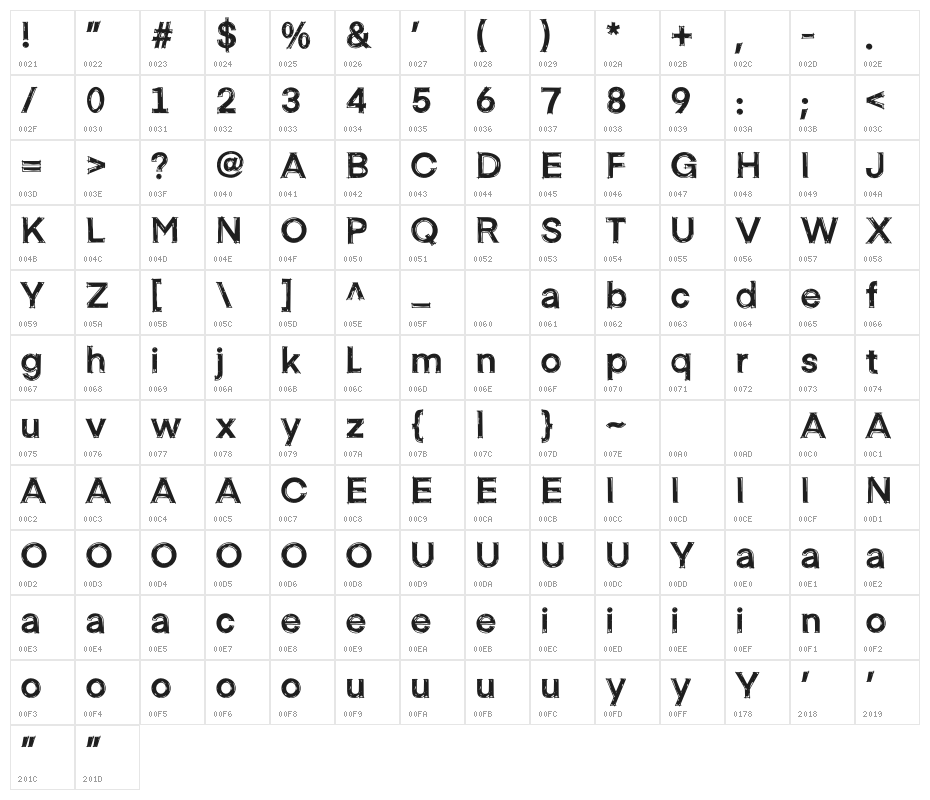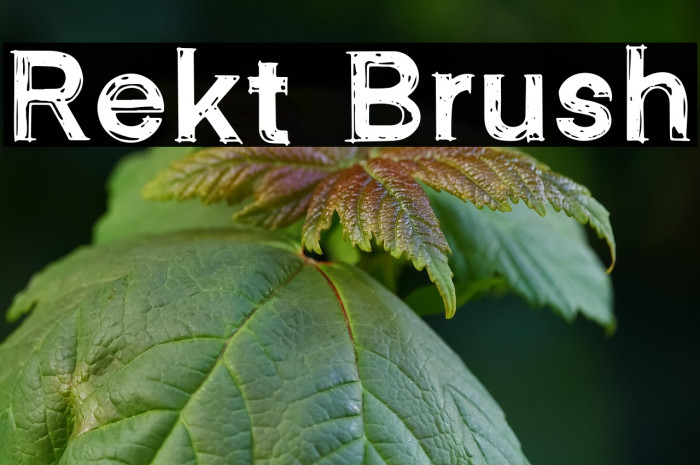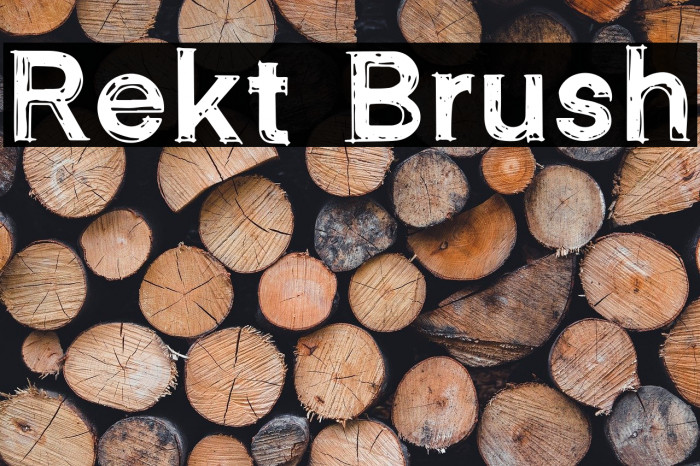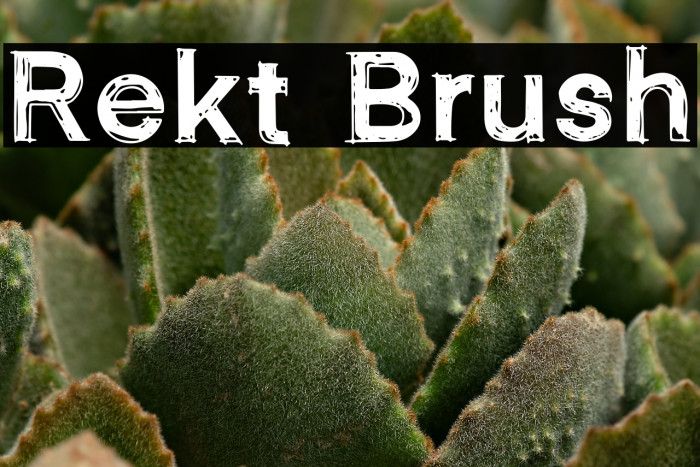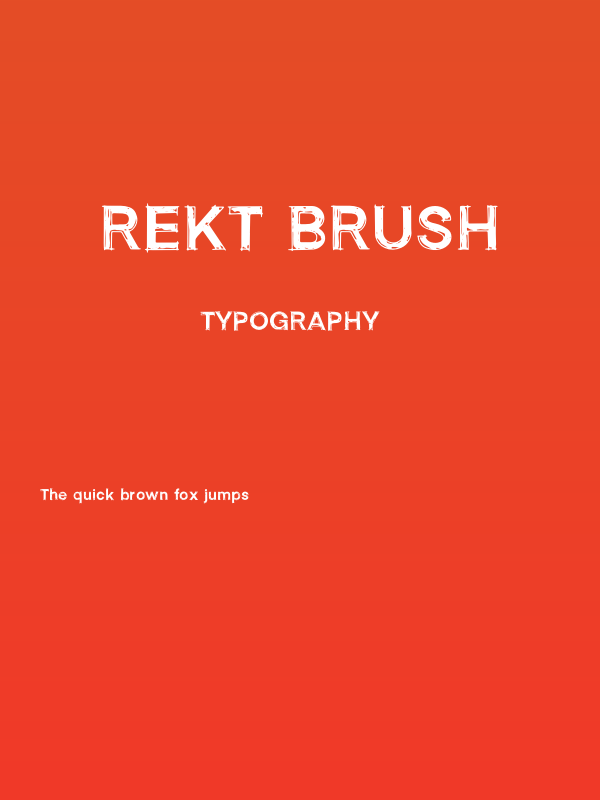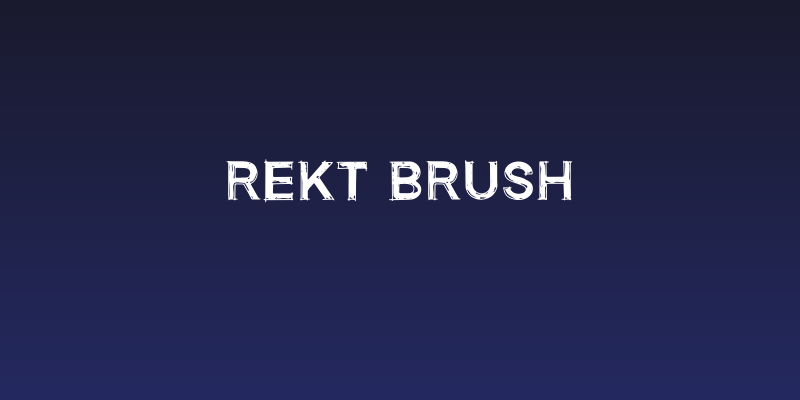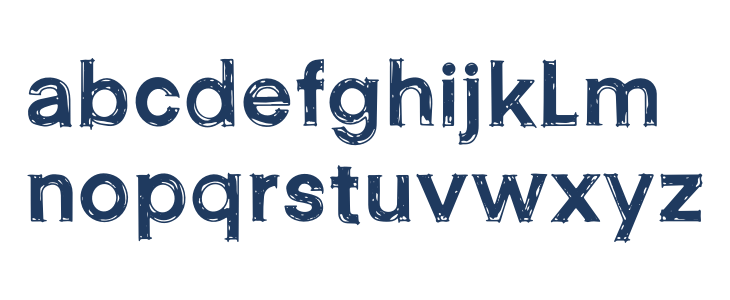
Rekt Brush Font
Rekt Brush Description
This font features a bold, brush-like appearance with a distressed texture that gives it a rugged and edgy feel. The strokes are uneven and appear hand-drawn, adding a dynamic and energetic quality. The uppercase and lowercase letters maintain a consistent style, with rounded edges and a slightly irregular baseline, enhancing its casual and informal look. The numbers and special characters follow the same design, ensuring a cohesive appearance across all glyphs. This font is ideal for projects that require a bold statement and a touch of artistic flair.